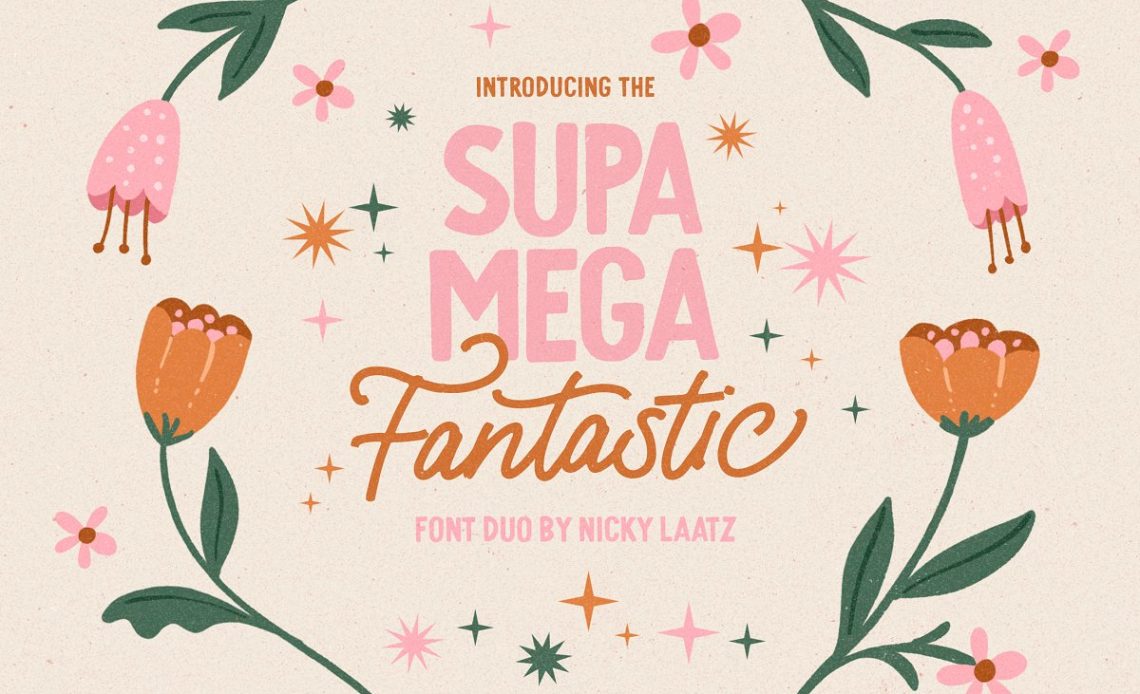
Looking for a playful and versatile font collection to elevate your designs? Look no further than the Supa Mega Fantastic Font Duo! Created by the talented Nicky Laatz, this sweet little duo of hand lettered sign-painter style fonts is sure to add a fancy flair to your words.
With a playful monoline script and a chunky all caps sans serif, the Supa Mega Fantastic Font Duo is choc-a-block with alternates, including a multitude of Opentype alternate characters. All uppercase characters have a fancy alternate, and all lowercase letters have a selection of alternates for you to choose from to suit your wording best.
The Script comes in two variants - Regular and slightly thinner. The slightly thinner version is best suited to lighter type on darker backgrounds, and the slightly thicker version is better suited to darker type on lighter backgrounds.
Perfect for playful typography-based branding, greetings, beautiful quotes, fun packaging design, posters, invites and so much more, the Supa Mega Fantastic Font Duo is a must-have for any designer. And with language support for Danish, English, Finnish, French, German, German (Switzerland), Norwegian Bokmål, Norwegian Nynorsk, Spanish, Swedish, Swiss German, you can use it to create stunning designs no matter where you are.